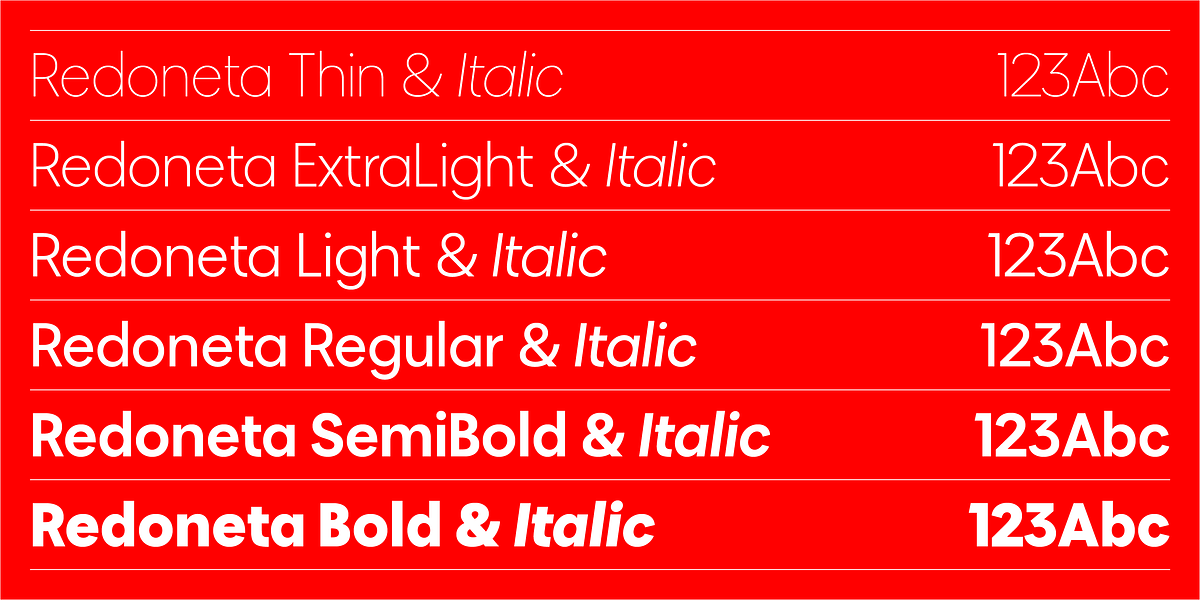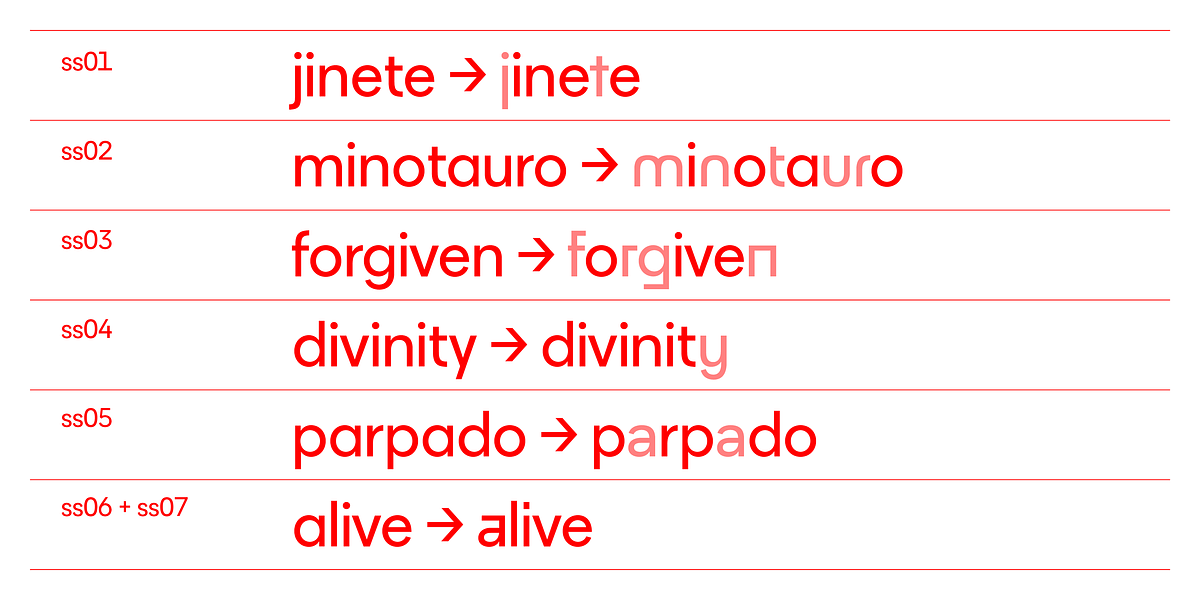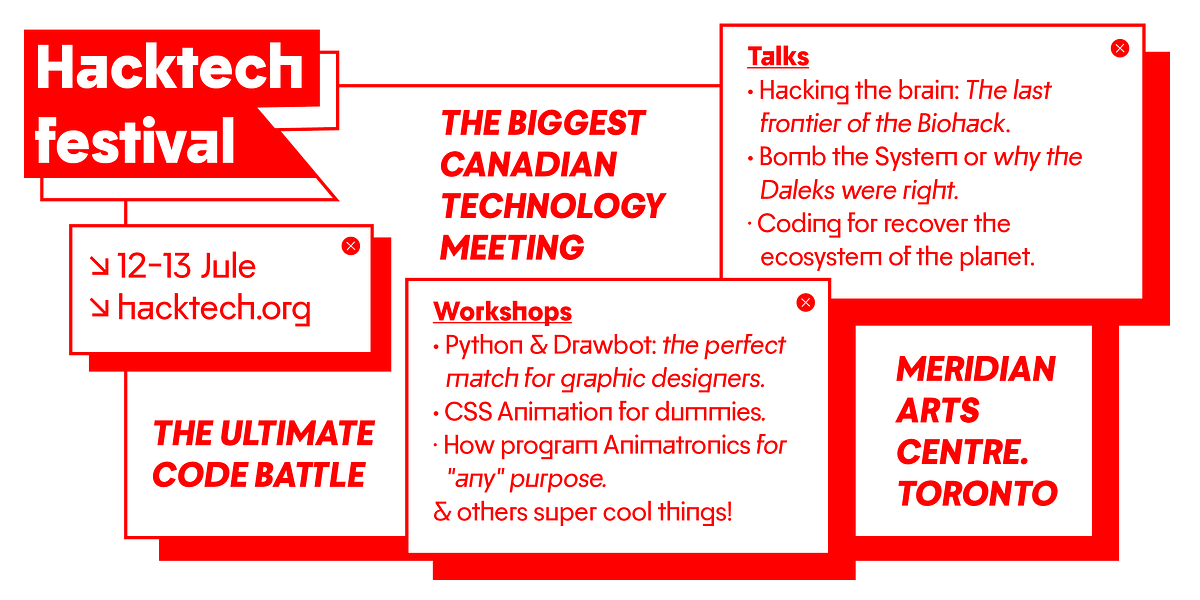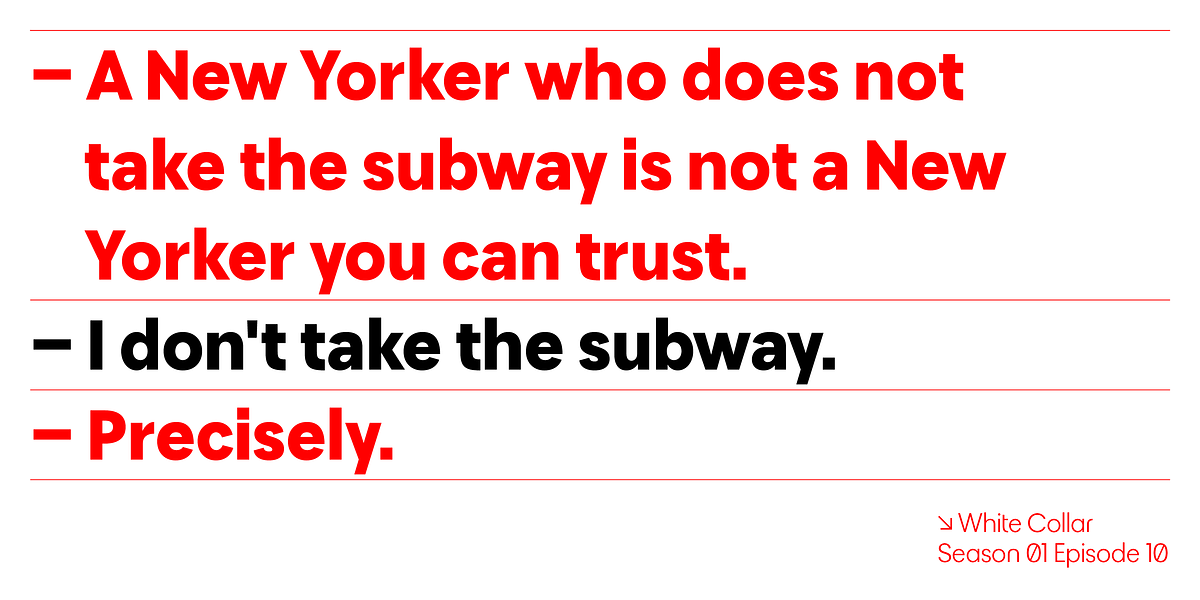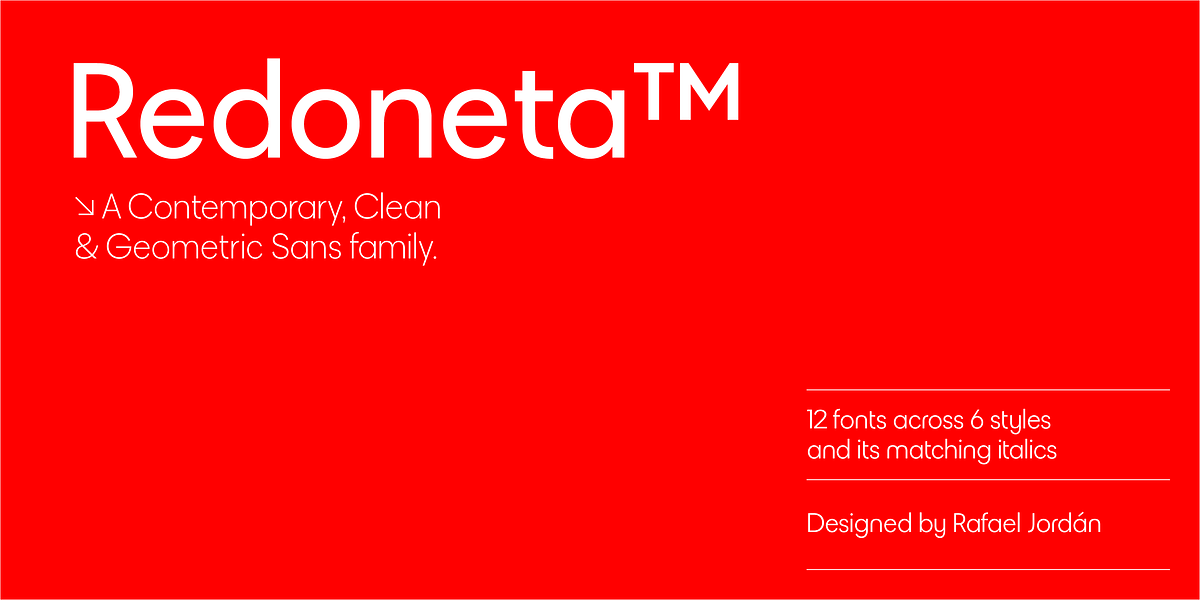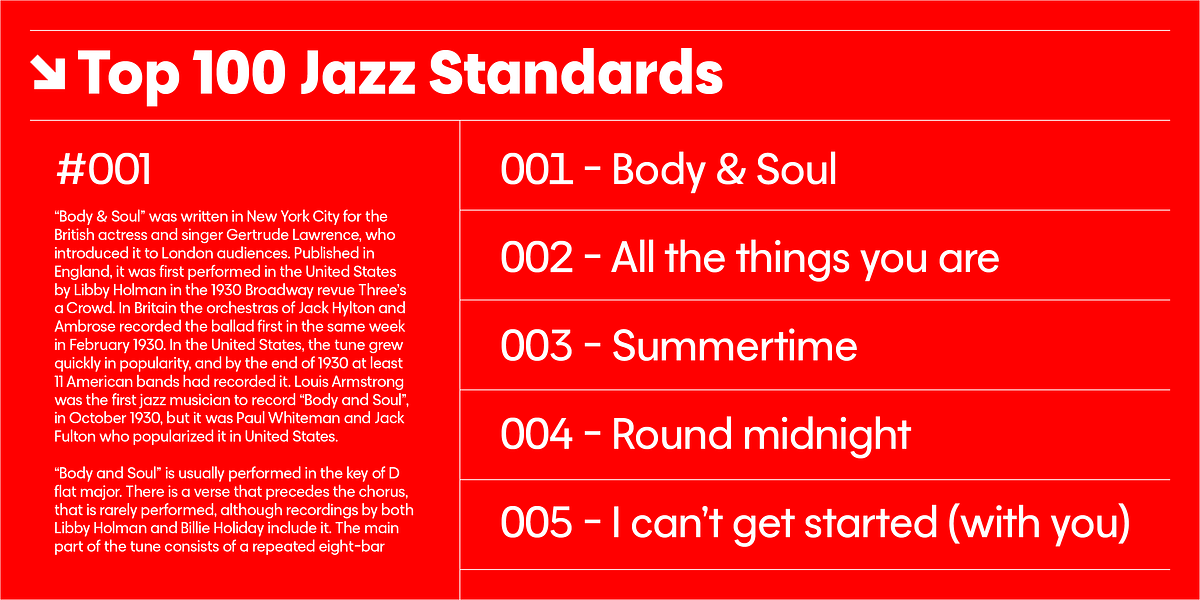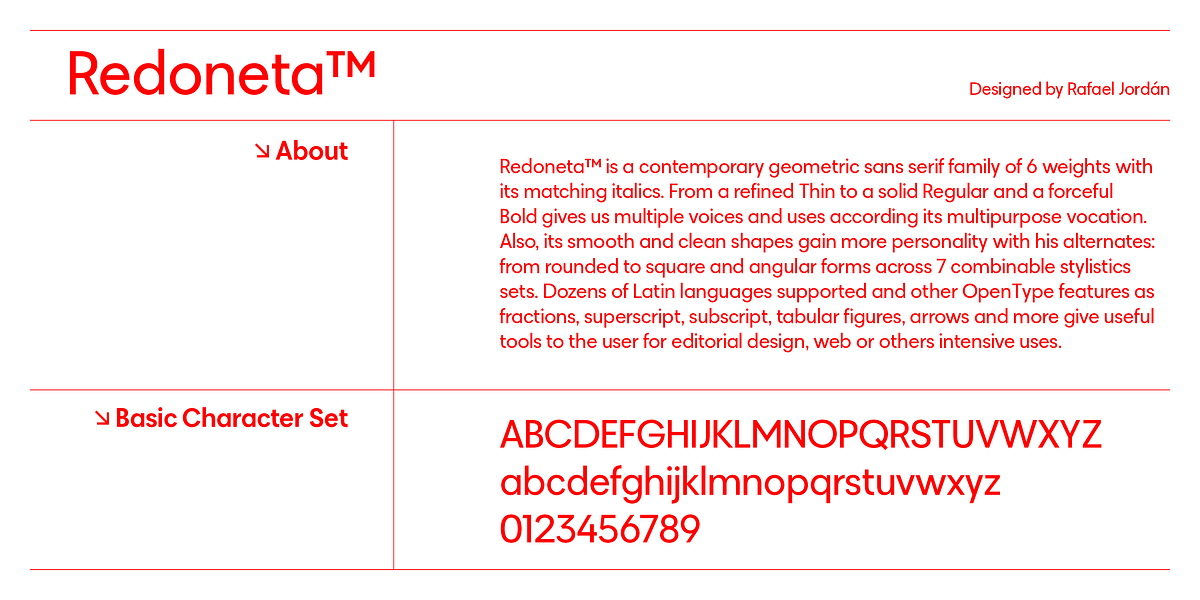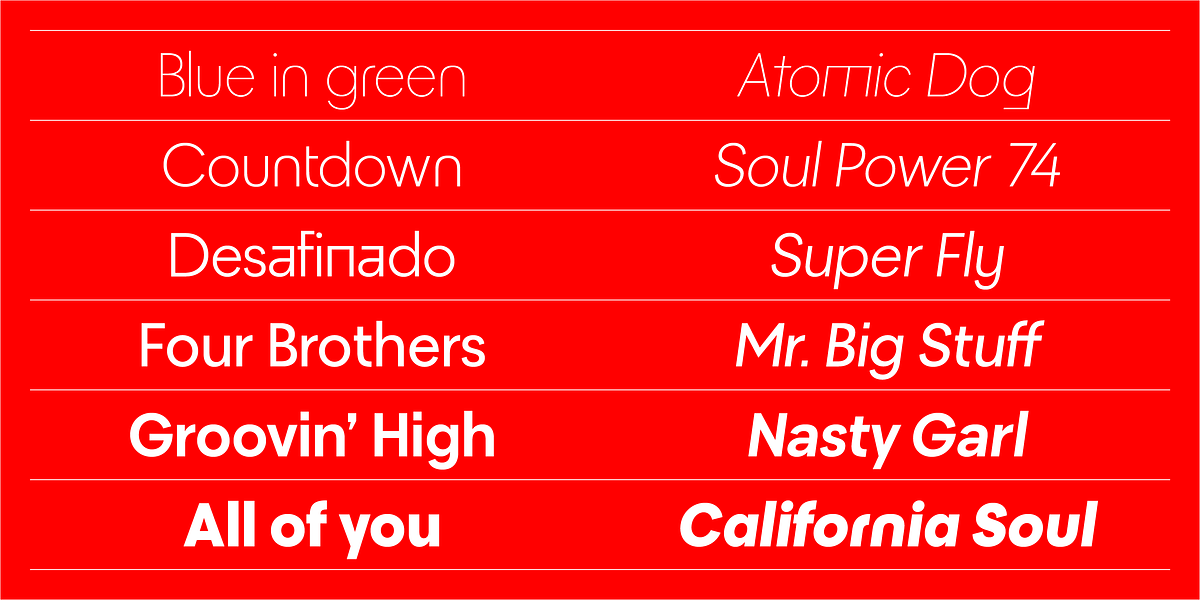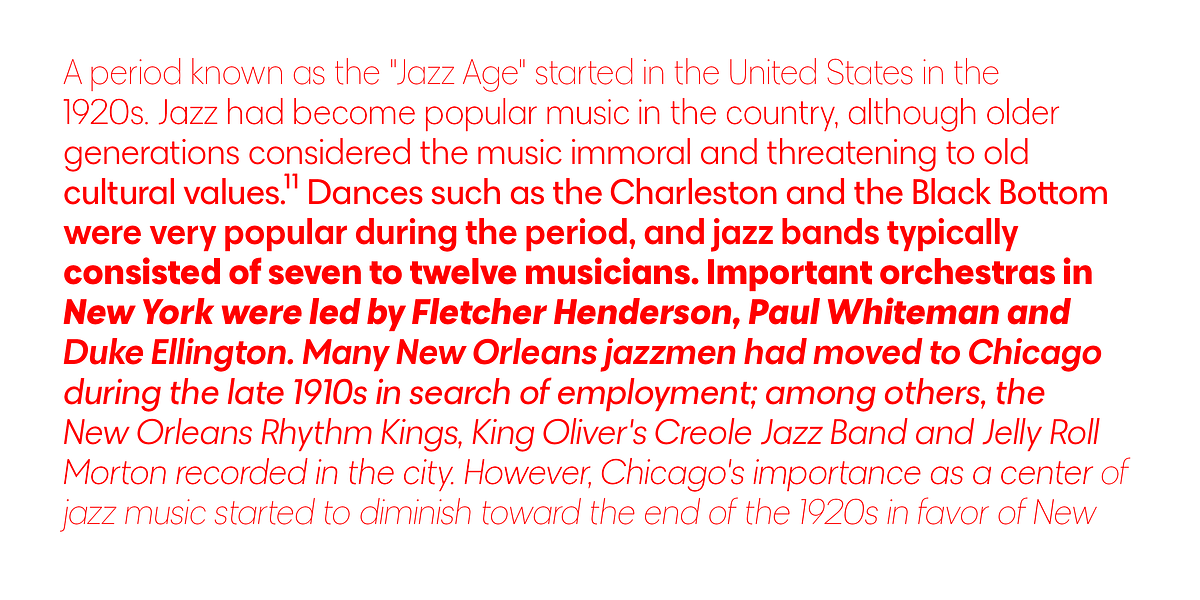
Redoneta
Redoneta is a contemporary geometric sans serif font family. It offers six weights, ranging from Thin to Bold, along with matching italics. The font features smooth and clean shapes, which gain additional personality through its alternates offering rounded, square, and angular forms across seven combinable stylistic sets. Redoneta supports dozens of Latin languages and includes OpenType features such as fractions, superscript, subscript, tabular figures, and arrows.